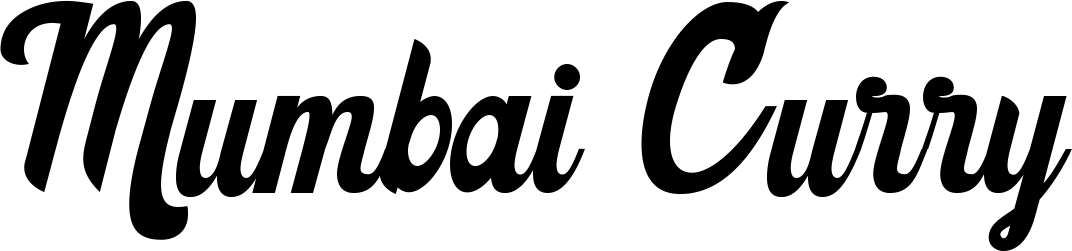
Mumbai Curry Font
If you want friendly, informal, and fancy handwriting typography, then you will adore the Mumbai Curry font! It offers bold retro-style strong characters that give your typography a beautiful, sociable look with a vintage feel that has a unique cursive style in its design.
To confirm this script old school font offers mixed case alphabets, a set of numbers, and punctuations to meet your typography needs! You might want to include Mumbai Curry font for branding, magazines, invitation cards, and more.